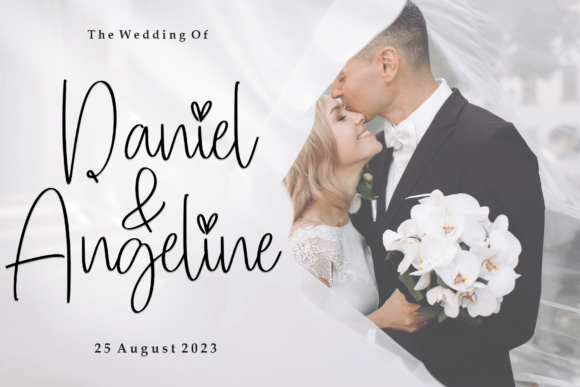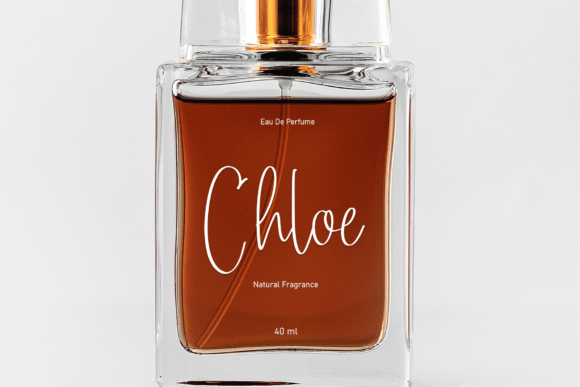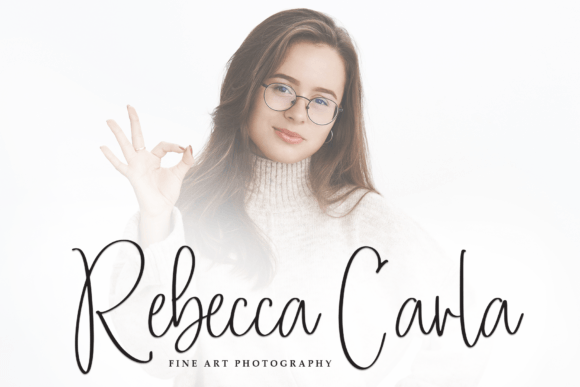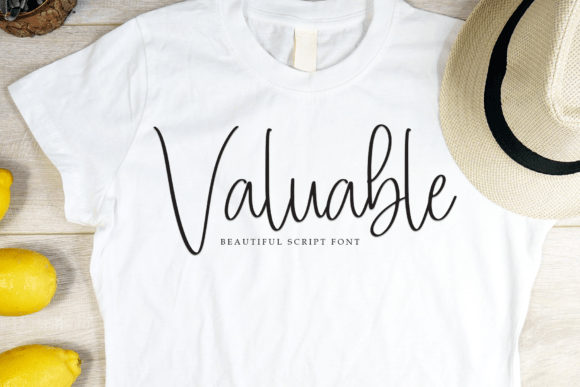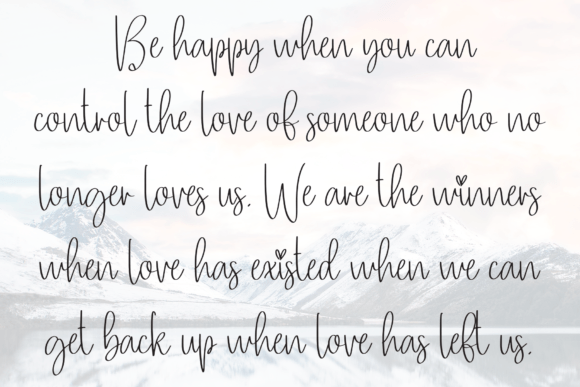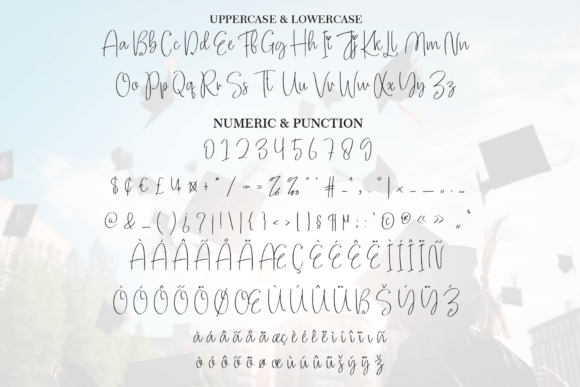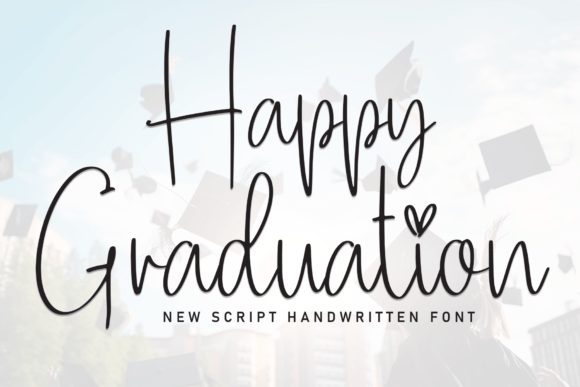
Introducing Happy Graduation Font: The Perfect Choice for Elegant Designs
Are you looking for a font that exudes elegance and sophistication? Look no further than the Happy Graduation Font. This beautiful, handwritten font is perfect for crafty designers and crafters who want to add a touch of whimsy and charm to their projects. With its delicate swashes and sweet, cursive script, Happy Graduation Font is sure to become a favorite in your font collection.
What Makes Happy Graduation Font So Special?
Happy Graduation Font is an elegant and dainty handwritten font that features sweet and delicate swashes. Its original look will appeal to a wide range of crafty ideas, from letterheads and titles to stationery and more. Whether you’re creating a wedding invitation, a baby shower announcement, or a graduation party program, this font is sure to impress.
One of the best things about Happy Graduation Font is its versatility. It’s perfect for a wide range of design projects, including:
- Stationery: Create beautiful letterheads, notecards, and journals with Happy Graduation Font.
- Wedding Invitations: Add a touch of elegance to your wedding invitations and save-the-date cards.
- Graduation Parties: Celebrate graduation day with a custom party program or diploma featuring Happy Graduation Font.
- Baby Showers: Create adorable baby shower invitations and decorations with this sweet font.
- Signs and Banners: Use Happy Graduation Font to create eye-catching signs and banners for any occasion.
Why Designers and Crafters Love Happy Graduation Font
So, why do designers and crafters love Happy Graduation Font? Here are just a few reasons:
- Elegant and Sophisticated: Happy Graduation Font is the perfect choice for designers who want to add a touch of elegance and sophistication to their projects.
- Easy to Read: Despite its delicate swashes and cursive script, Happy Graduation Font is easy to read, making it perfect for body text and headings.
- Highly Versatile: Use Happy Graduation Font for a wide range of design projects, from stationery to signs and banners.
- Unique and Eye-Catching: Happy Graduation Font is sure to stand out in a crowd, adding a touch of whimsy and charm to any design project.
Tips for Using Happy Graduation Font
Here are a few tips for using Happy Graduation Font in your design projects:
- Pair with Other Fonts: Pair Happy Graduation Font with other fonts to create a unique and eye-catching design.
- Experiment with Colors: Try out different colors and color combinations to find the perfect look for your design project.
- Use Swashes and Flourishes: Take advantage of Happy Graduation Font’s delicate swashes and flourishes to add a touch of elegance and sophistication to your design.
In conclusion, Happy Graduation Font is a beautiful, elegant, and highly versatile font that’s perfect for designers and crafters who want to add a touch of whimsy and charm to their projects. With its delicate swashes and sweet, cursive script, Happy Graduation Font is sure to become a favorite in your font collection. So why wait? Download Happy Graduation Font today and start creating stunning designs that will leave a lasting impression.